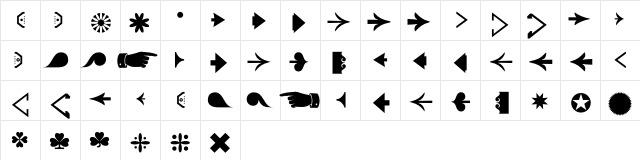
Eames Ornaments Regular
| Foundry | House Industries |
| Designer | Erik van Blokland with BondΠPrang |
Design Context for Eames Ornaments Typeface
Eames Ornaments is built around its visual character rather than neutral utility — its distinctive forms are designed to make an impression at display sizes.
Font Pairing: Pair with a clean neutral sans-serif for body copy to let Eames Ornaments's character lead without overwhelming the composition.
Pro Tip: Use Eames Ornaments exclusively at display sizes — it was designed to be seen, not read at length. Let a neutral companion handle body copy.